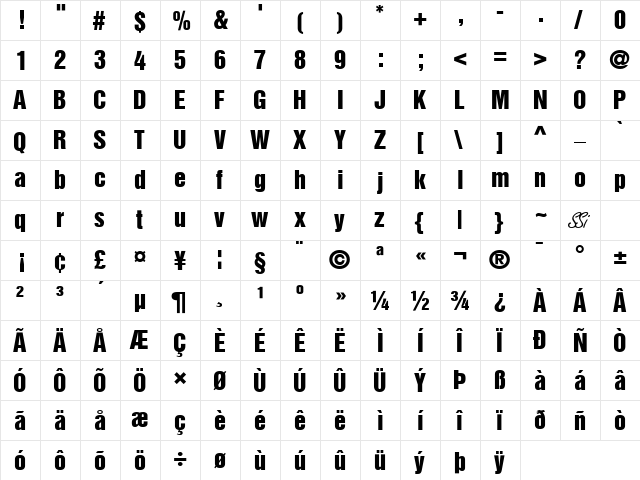
Context Inserat SSi Regular Font Preview
Context Inserat SSi Regular
Design Context for Context Inserat SSi Typeface
Context Inserat SSi offers clean, dependable letterforms without strong stylistic allegiance, making it a practical choice for designers who need flexibility.
Pro Tip: Use Context Inserat SSi in both headline and body roles to test its range before committing to a single application.